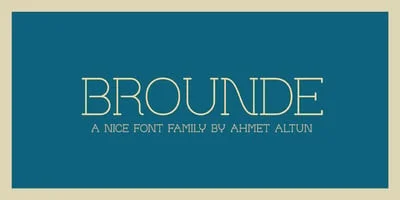
Brounde Font
Brounde Font is perfect for artisanal coffee branding, rustic bakery signage, organic farm marketing, earth-tone lifestyle brands, natural skincare packaging, vintage craft shops, and warm culinary projects.
What makes Brounde Font exciting is its earthy warmth and natural comfort, featuring grounded letterforms that capture the essence of organic authenticity while delivering cozy visual appeal and artisanal genuineness.
The Brounde Font family includes Light, Regular, Medium, Bold, and Heavy weights, plus textured variants and natural alternates that enhance the font's earthy character and organic possibilities.
Brounde Font embodies the comforting essence of natural warmth and artisanal craftsmanship through authentic typography design. This grounding typeface captures the rich, earthy tones of organic living and handcrafted quality, creating a warm visual language that speaks to audiences who appreciate natural authenticity, sustainable practices, and the comforting appeal of earth-connected living. The font's earthy character and natural appearance make it perfect for organic brands, artisanal producers, and sustainable businesses that want to communicate authenticity, warmth, and the genuine appeal of natural craftsmanship.
Organic producers and artisanal brands consistently select Brounde Font for projects that require authentic natural credibility and earthy visual appeal. The typeface's grounded construction and warm personality make it exceptionally effective for coffee roasters, organic food producers, and handcraft businesses where natural authenticity and artisanal quality are paramount. Each character has been crafted with organic precision to ensure authentic appeal across all natural applications and earthy environments.
The organic advantages of Brounde Font extend beyond its earthy appeal to include practical functionality for diverse natural applications. The font maintains excellent readability in rustic settings while delivering the distinctive character that creates meaningful connections with audiences seeking authentic natural products and sustainable living solutions. Its comprehensive character set includes organic symbols and natural elements that make it particularly suitable for artisanal documentation and earth-friendly communication.
Coffee shops, organic farms, and artisanal craft businesses frequently choose Brounde Font because of its ability to instantly convey natural authenticity and artisanal quality. The typeface's earthy aesthetic helps establish credibility in organic markets while appealing to customers who value sustainable practices, natural ingredients, and the comforting experiences that come from authentic artisanal craftsmanship and earth-connected living.